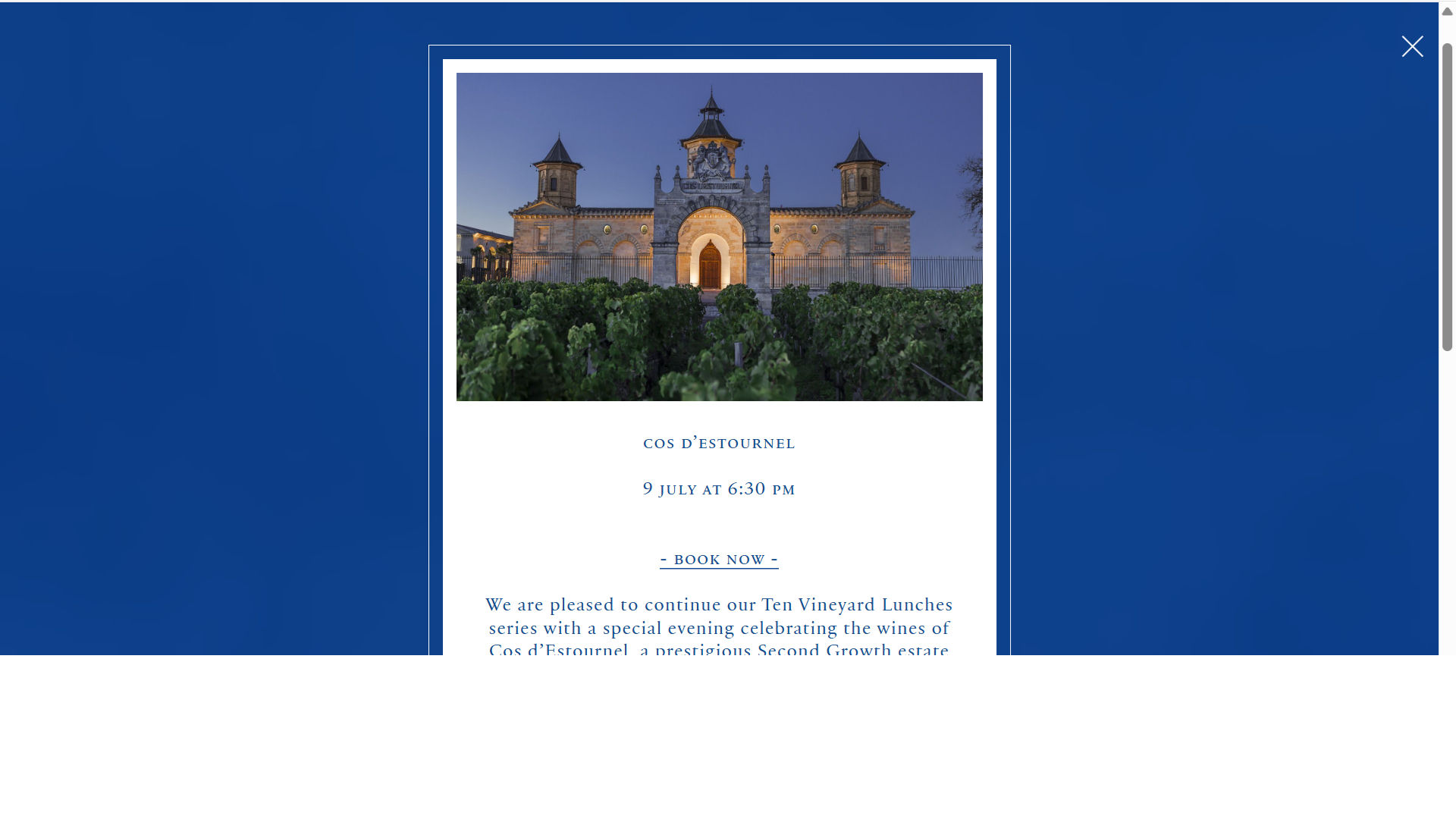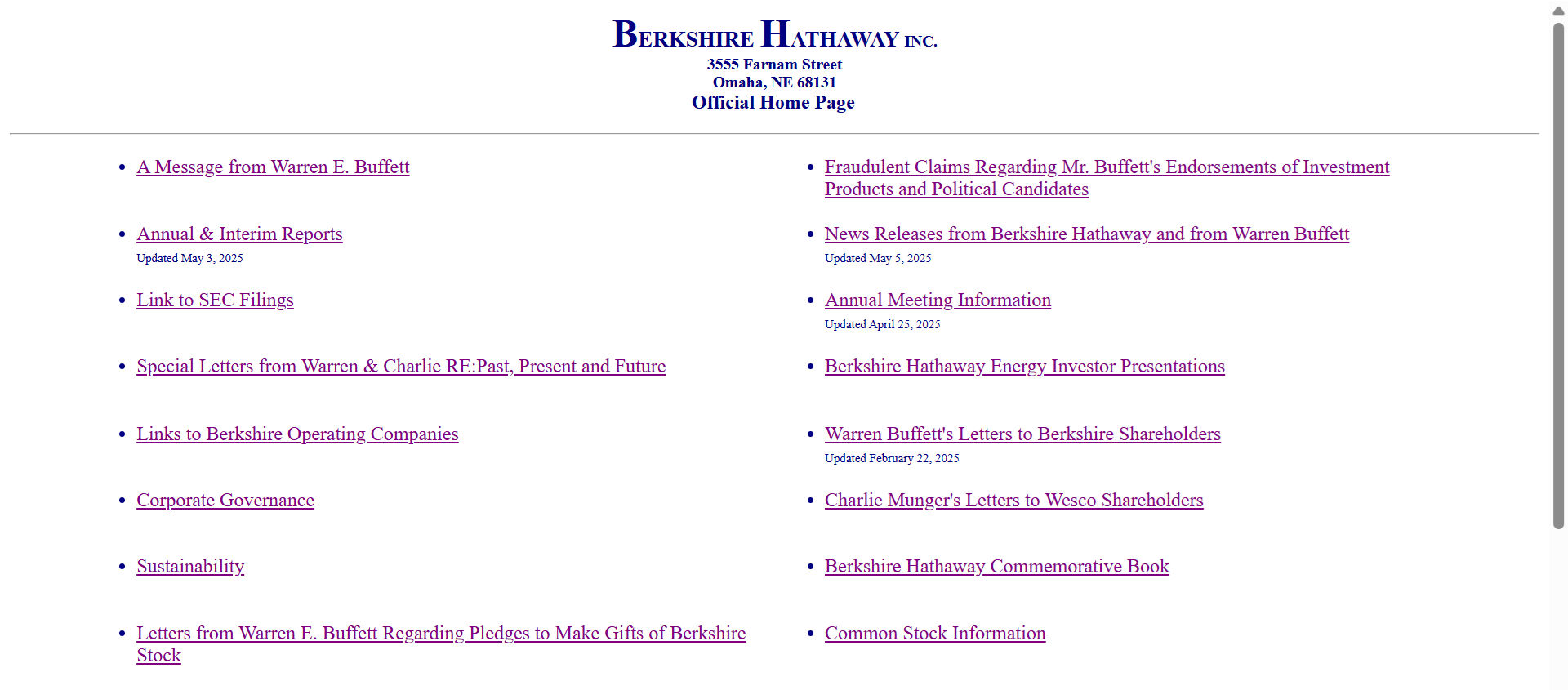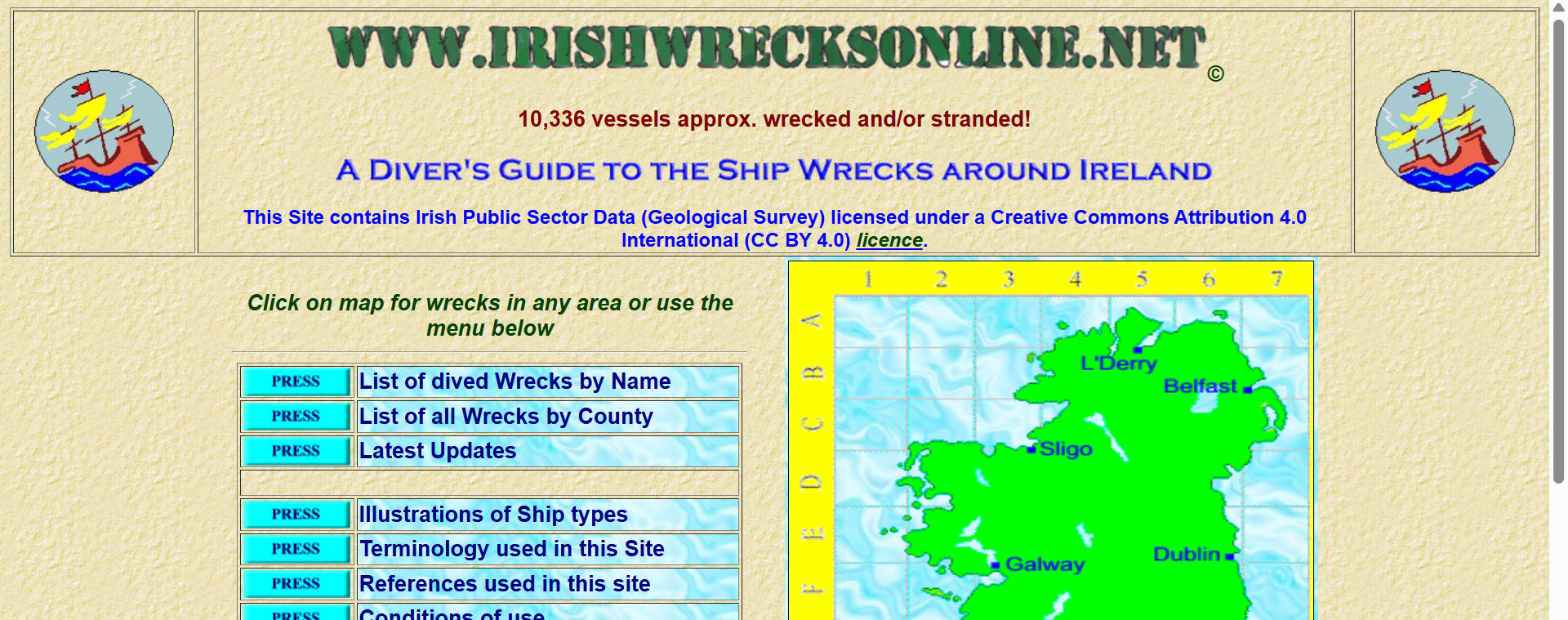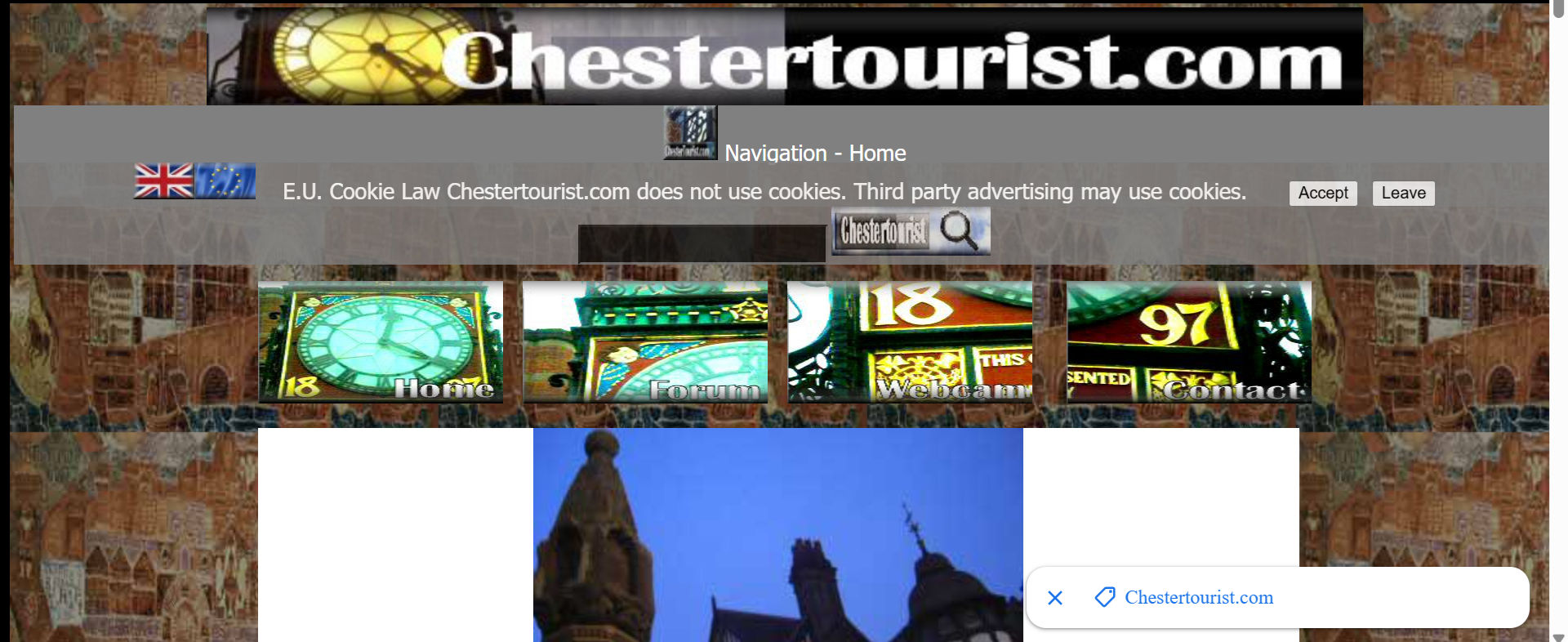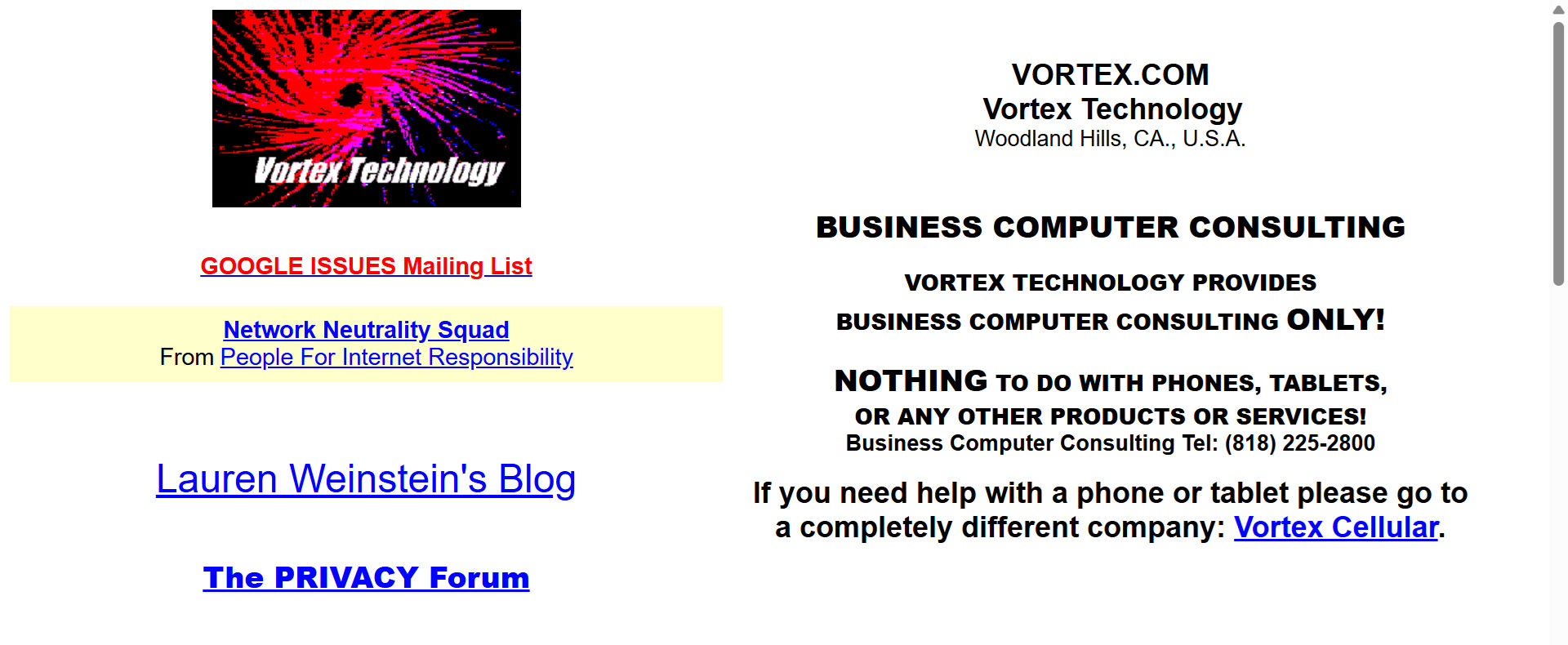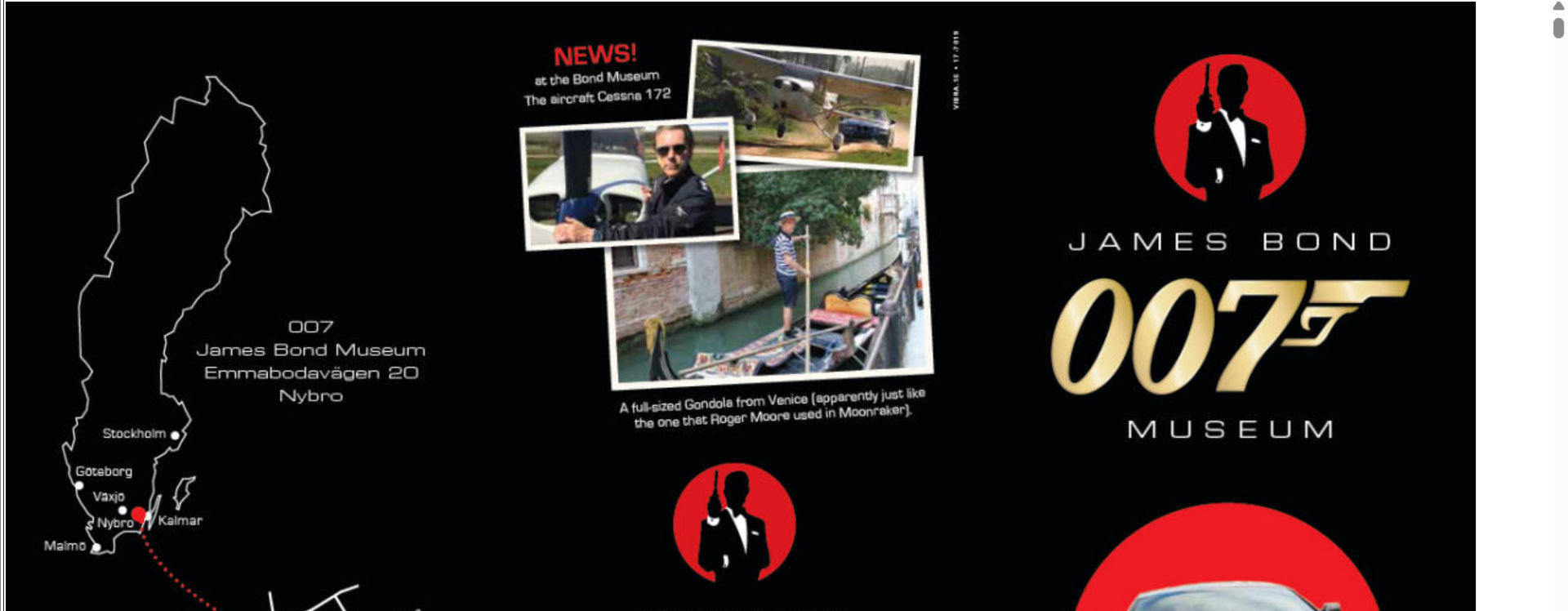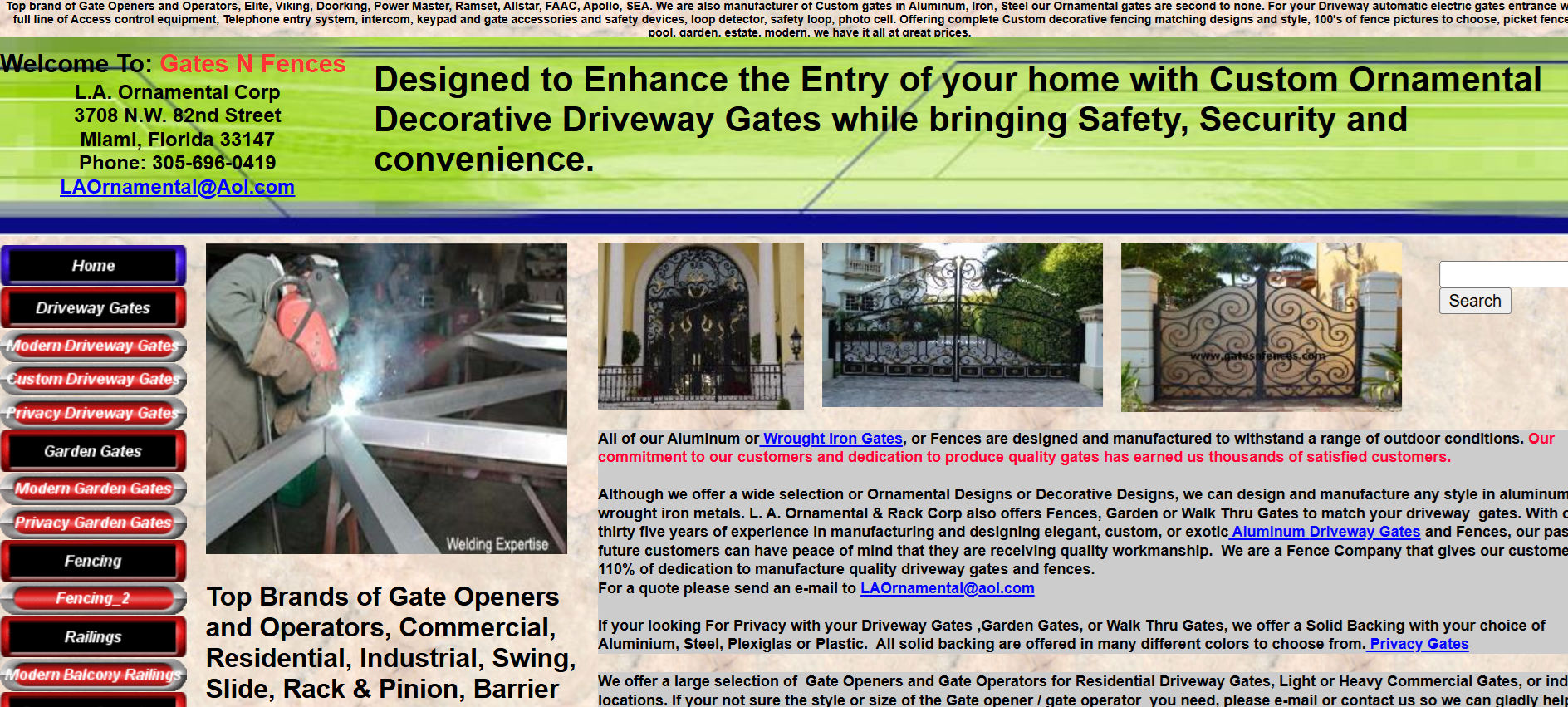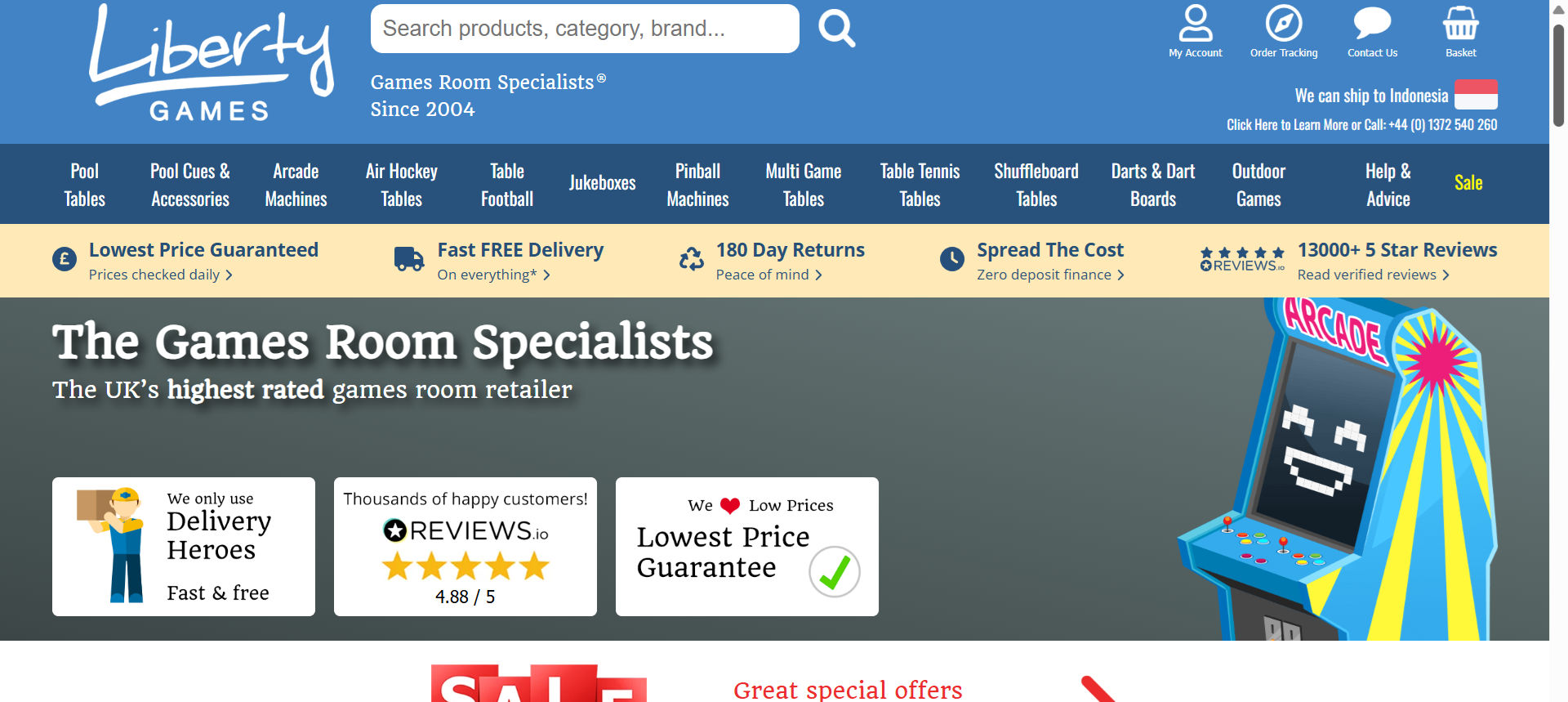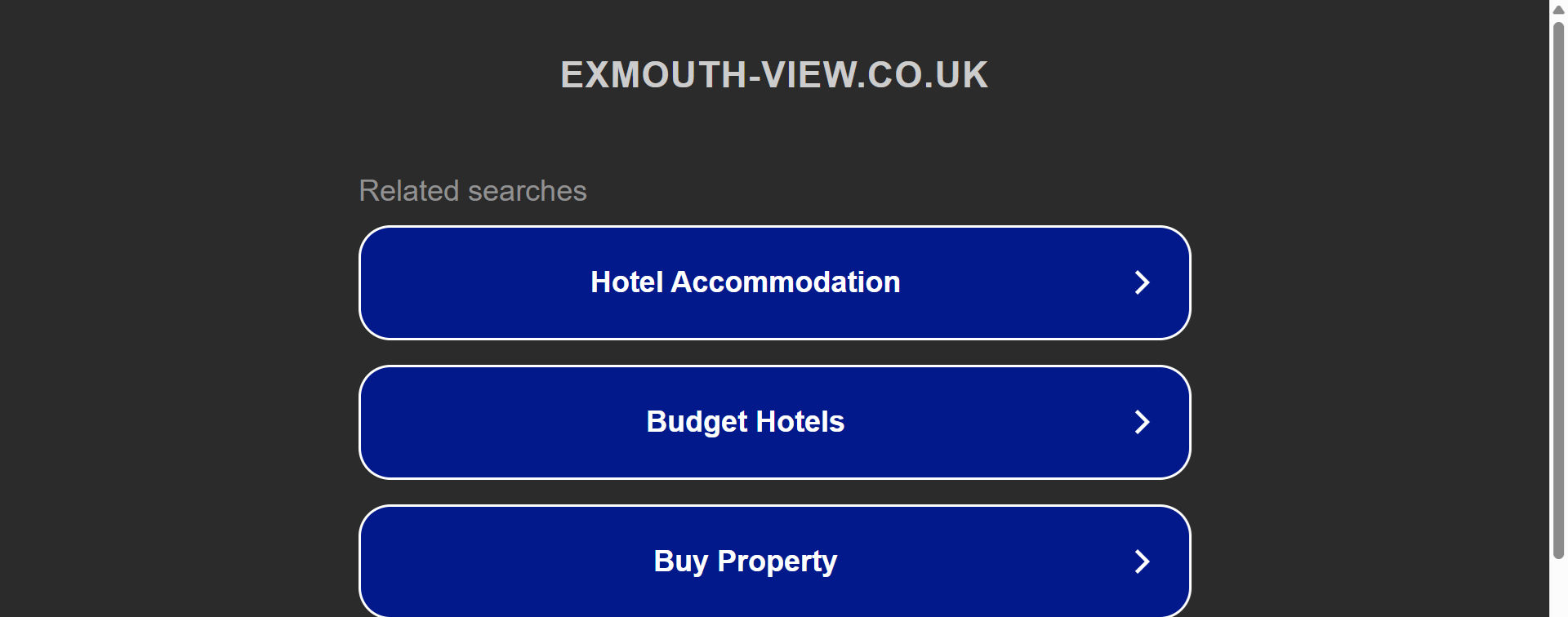
Even among well-established websites, there are still bad web design examples worth learning from. Instead of supporting user needs, these sites often highlight key design pitfalls. According to Ramotion, key issues include visual flaws, cluttered design, usability mistakes, and security susceptibility that can significantly reduce user engagement and overall traffic.
- Bad web design typically encompasses both visual and functional flaws.
- Some web designs are too basic, and others may present excessive pop-ups.
- Many poor web designs often decrease user engagement through poor readability and unclear navigation.
1. Arngren
Arngren’s web design (Source: Arngren)
The site overwhelms users with excessive images. Moreover, it lacks mobile responsiveness and sufficient white space, which makes users struggle to follow the content without visual breaks.
2. Gates N Fences
Gates N Fences’ web design (Source: Gatesnfences)
As you can see, the visual style of Gates N Fences appears outdated and unappealing to users, which makes them less inclined to explore. It also struggles with difficult navigation and a cluttered layout, making users distrustful of the website.
3. Exmouth View
Exmouth View’s web design (Source: Exmouth View)
Exmouth View is too basic. The website is well-organized, but it lacks visual appeal, clear information, and a poor call to action (CTA), so visitors may struggle to understand the site’s purpose.
4. Ash End House Children’s Farm
Ash End’s web design (Source: Ash End House Children’s Farm)
While it’s informative, Ash End House Children’s Farm is too boring. This is one of the bad web design examples because of its poor color choice and long-form text that leads to eye strain and fatigue.
5. Pacific Northwest X-Ray Inc.
Pacific’s web design (Source: Pacific Northwest X-Ray Inc.)
At first glance, Pacific Northwest X-Ray Inc. appears to be an outdated online directory due to its vintage-looking logo and bad color scheme. The homepage primarily focuses on text direction without an image and appears barren.
6. Craigslist
Craigslist’s web design (Source: Craigslist)
Craiglist is only made up of links with no images or logos available, which makes it look plain. This is one of the bad web page design examples that also present a disorganized content hierarchy and a confusing navigation menu, leading to a lack of a clear path for users.
7. Blinkee
Blinkee’s web design (Source: Blinkee)
Blinkee looks tacky with too colorful fonts and bad-quality images. This website has a slow load time and a poorly designed layout, making it lose opportunities for design appreciation.
8. The Egg Shed
Egg Shed’s web design (Source: The Egg Shed)
Out of all features, the Egg Shed presents disorganized text blocks, making the website appear dense. The minimal interactive elements also contribute to a lack of clear guidance.
9. Cloud 9 Walkers
Cloud 9 Walkers’ web design (Source: Cloud 9 Walkers)
This website design is too monotone with its inconsistent font style and bad visual hierarchy. You’ll experience poor navigation with no sidebar menu at all.
10. Paradise Water
Paradise Water’s web design (Source: Paradise Water)
Visitors will likely see an unclear layout structure at once. The bad typography hierarchy, as well as low-quality images and logos, contributes to preventing them from engaging with the content.
11. The Clove Club
The Clove Club’s web design (Source: The Clove Club)
This website is indeed pretty, with its appealing imagery. However, a lack of clear visual order and a call to action may potentially deter them from staying or returning.
12. Yale School of Art
Yale School of Art’s web design (Source: Yale School of Art)
This design suffers from excessive clutter, with a complex layout and text jammed on the whole page. This is one of the bad web design examples that also suffers from poorly placed navigation menus.
13. Berkshire Hathaway Inc.
Berkshire’s web design (Source: Berkshire Hathaway Inc.)
Without background hue and website image styling, Berkshire Hathaway Inc. is a very basic version, resulting in a less engaging experience. Plus, the complex link text in the whole website increases the cognitive burden.
14. Irish Wrecks Online
Irish Wreck’s web design (Source: Irish Wreck Online)
It’s visible, but it is visually overwhelming since it has highly contrasting bright colors. In addition, the inconsistent letter case disrupts the page’s flow.
15. Chester Tourist
Chester Tourist’s web design (Source: Chester Tourist)
Combined with bad-quality images and poor server performance, Chester Tourist is terrible for both the desktop and mobile versions. Plus, the excessive ads and messy menu layout make users feel annoyed.
Let’s Elevate Your Web Design and Make it Good!
Don’t make the same common pitfalls like those web design examples. Instead, let’s build a well-constructed website. By examining the bad web design examples above, you can pinpoint exactly where improvements are needed.To establish a recognizable style of website, incorporate an exclusive font collection from Lettersiro into your project. Our fonts’ complete kit, accompanied by versatile licenses and convenient installation, will truly make your project stand out at a glance!